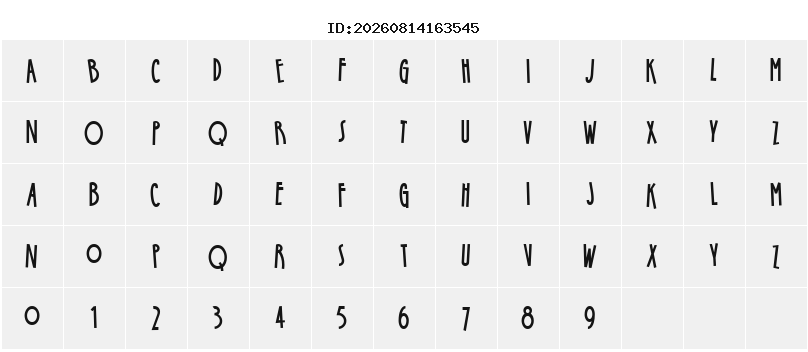
StoneSoupNF Preview
• Font Name: StoneSoupNF
• Full Font Name: StoneSoupNF
• PostScript Name: StoneSoupNF
About StoneSoupNF.ttf
StoneSoupNF.ttf is a modern, elegant sans-serif font designed for ultimate readability and visual harmony. Perfect for branding, headlines, web design, and print materials.